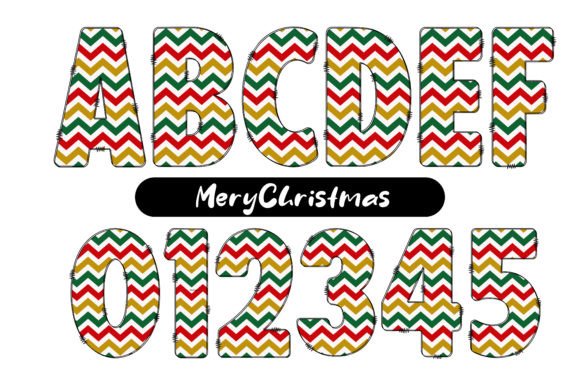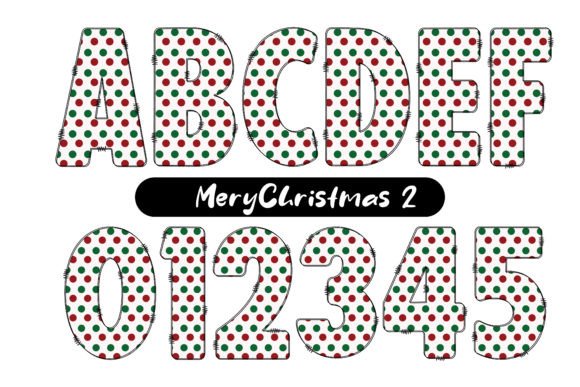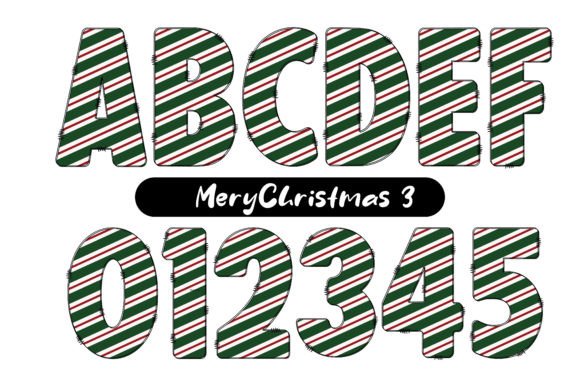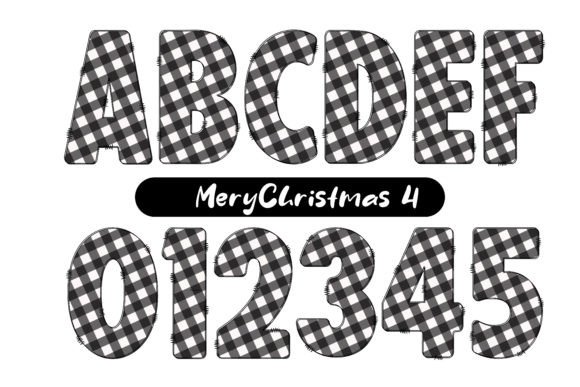
Introduction to Mery Christmas Font
Mery Christmas is a cute and festive decorative color font.
It will look amazing on all your Christmas-themed designs, shirts, crafts, and cards and will instantly enhance your projects .